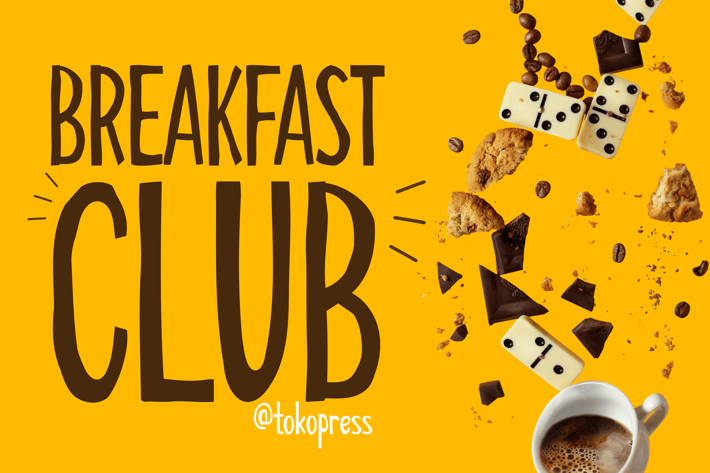
Breakfast Club - Cute Kids Font
Breakfast Club - Cute Kids font
Breakfast Club is a playful rounded font designed with soft curves, generous spacing, and a bubbly personality—offering a visually warm experience that appeals to both kids and grown-ups alike. Its low-contrast strokes and semi-geometric forms give it a balanced structure while retaining an organic feel, making it ideal for lighthearted branding, children’s content, and food-related packaging.
Whether you're designing Instagram graphics, creating kids’ books, or working on feel-good product packaging, Breakfast Club captures attention with its approachable, cheerful tone. It’s the type of font that feels like morning sunshine and a fresh cupcake—optimistic, clear, and full of charm.
Breakfast Club brings the perfect mix of friendliness and function. It’s highly readable even at smaller sizes, which makes it a go-to for editorial quotes, product labels, poster headlines, and even app UIs aimed at younger audiences. Its cheerful vibe creates emotional resonance, helping your message feel more welcoming and expressive—ideal for creative entrepreneurs, illustrators, and lifestyle brands.
Key Features :
Soft & Approachable Design
• Rounded corners and low contrast strokes for a comforting, non-intimidating look.
Optimized for Emotional Impact
• Built to connect with younger audiences and playful product markets.
Flexible Usage in Visual Design
• Works great on packaging, social media banners, storybooks, and posters.
Easy to Pair
• Its clean, structured flow allows easy pairing with script fonts or bold headers.